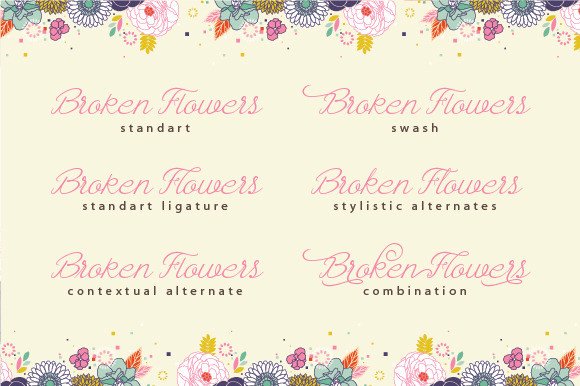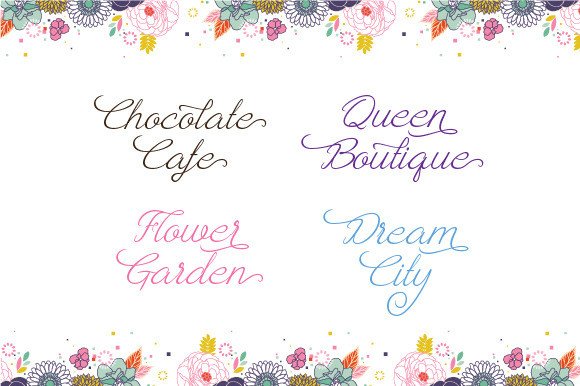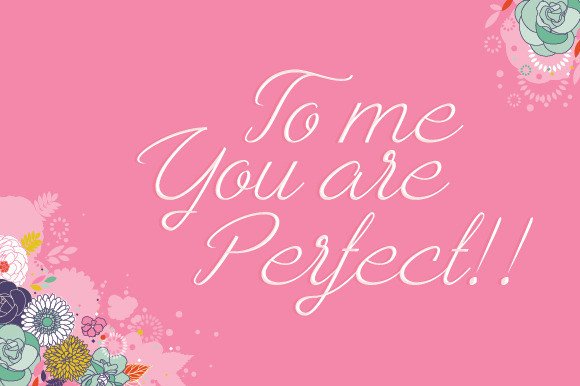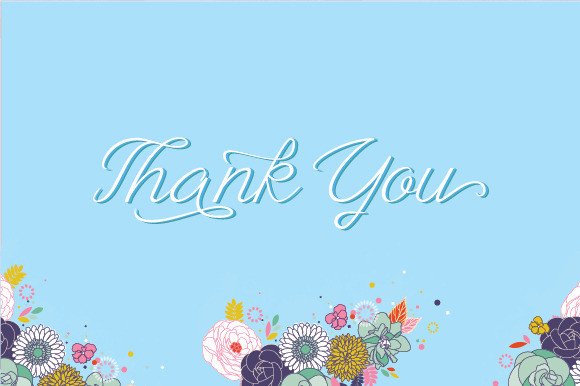
Ayla Font
About Ayla Font
Ayla script is a cute script typeface and can be used for various purposes such as posters, t-shirts, letterheads, logos, labels, wedding invitations, cards, and anything else you can imagine.